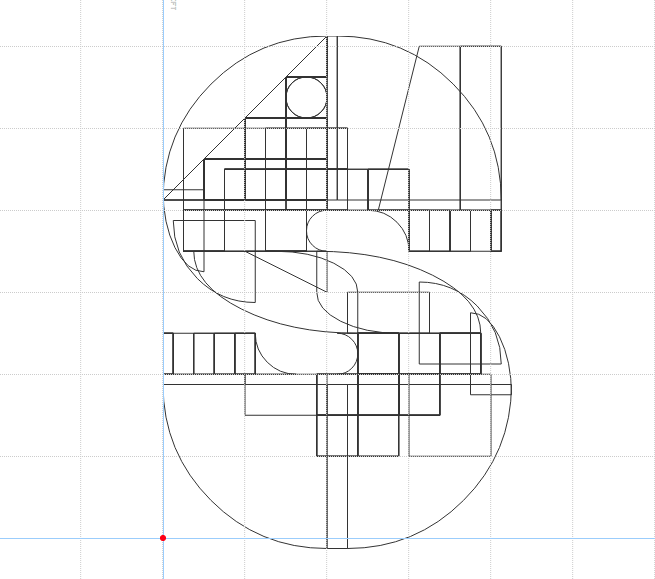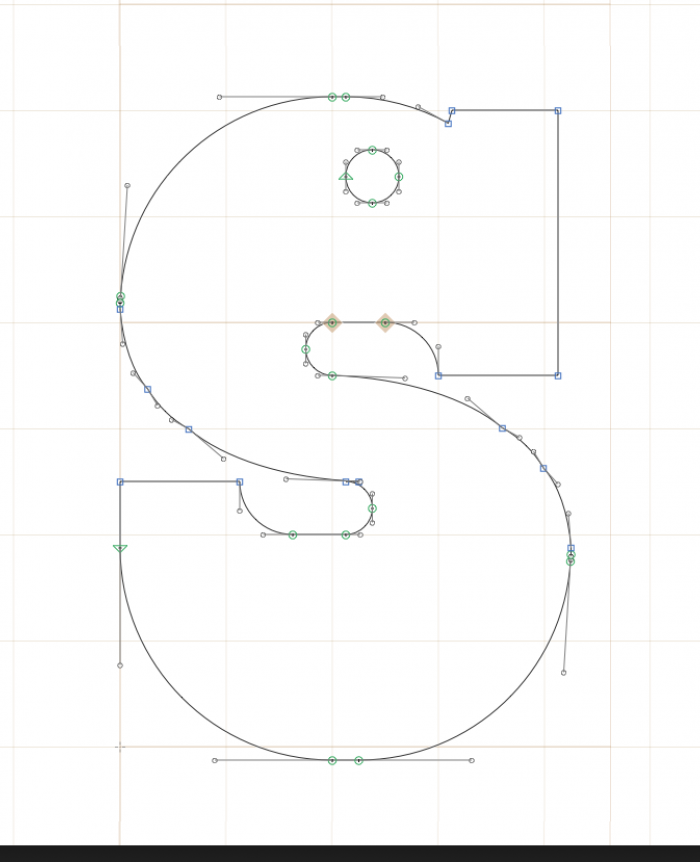
Obviously dedicated to the great Sergio Leone and his Spaghetti Western "Dollars Trilogy" filmed in Almería. The uppercase was shot. Contains some extra western dingbats, keep your head down.
The Man with No Name is the antihero character portrayed by Clint Eastwood in the "Dollars Trilogy": A Fistful of Dollars (1964), For a Few Dollars More (1965), and The Good, the Bad and the Ugly (1966). He is recognizable by his iconic poncho, brown hat, tan cowboy boots, fondness for cigarillos, and the fact that he rarely talks.
@Goatmeal: Thank you very much, compañero. Getting some of the curves to "almost" look right has been really difficult, but solving these kinds of situations is why I like FontStruct.
This was especially difficult to solve, and I am very happy with the final aspect, which can always be improved.
This is what the same glyph looks like when imported into Glyphs App (after “decomposing” the components) and then …
… After removing overlaps
Wooow! Fantastic! Now it does look like a beautiful S!
This is some high-effore western slab-serif! 10/10
Also, I like the overshoots…
Wow, beautiful work! It suits the movieposters so well and the bulletholes are a great addition.